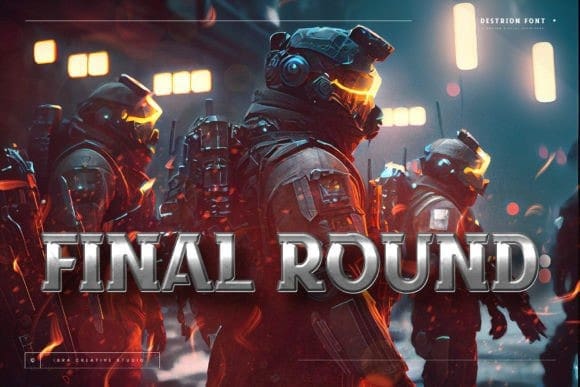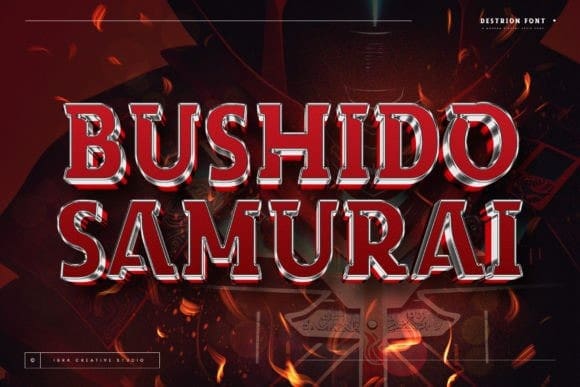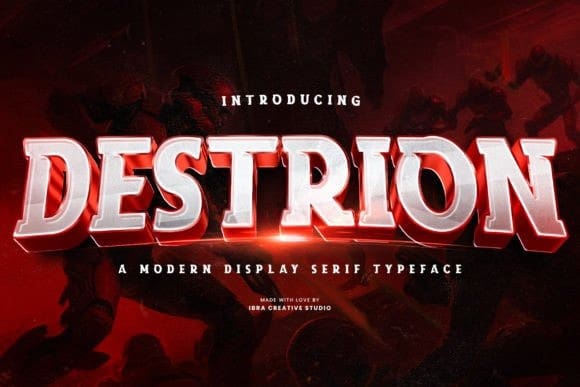
Destrion Font
Destrion Font, a contemporary display serif typeface, seamlessly blends classic elegance with a modern aesthetic, making it a distinctive choice for various design applications. With its refined letterforms, Destrion exudes sophistication and versatility, making it suitable for both digital and print media. The typeface strikes a balance between tradition and innovation, featuring distinctive serifs that add a touch of timeless charm while incorporating sleek, contemporary details.